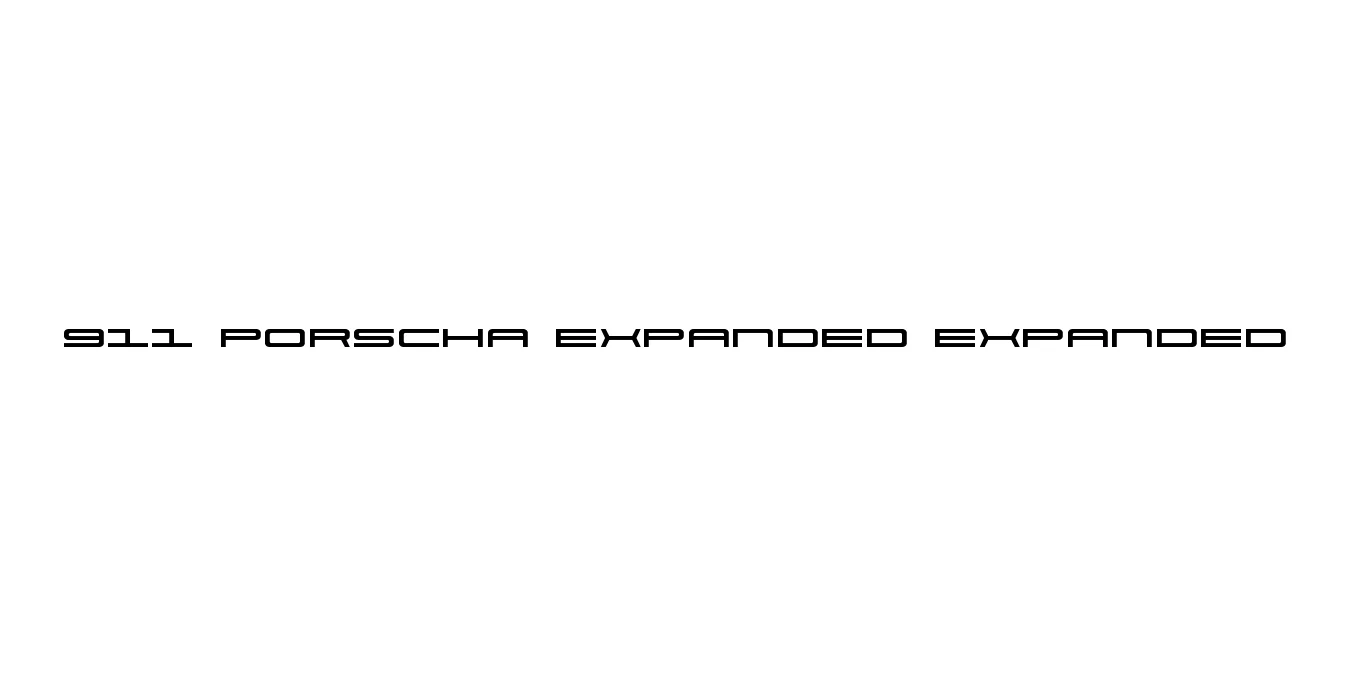
911 Porscha Expanded Expanded
Designed by Iconian Fonts (Dan Zadorozny)
| Category | Techno / Display |
911 Porscha Expanded is a high-octane display typeface heavily inspired by the iconic branding and logo of the Porsche automotive company. It embodies a techno-industrial aesthetic characterized by extremely wide proportions and sleek, horizontal lines that evoke a sense of speed, motion, and modern luxury. The typeface is part of a larger family designed to capture the essence of high-performance engineering and futuristic design.
This specific variant, Expanded Expanded, pushes the horizontal scale to its limits, making it a powerful choice for massive headlines and impactful visual identities. Since its release, it has become a go-to font for the automotive community, racing enthusiasts, and sci-fi designers who need a font that feels both aerodynamic and authoritative. Its clean, geometric construction ensures it remains legible even at extreme widths, serving as a staple for projects requiring a bold, mechanical presence.
911 Porscha Expanded Best Uses
Ideal for car club logos, racing decals, and vehicle-related branding.
Perfect for high-speed racing game interfaces and HUD elements.
Works well for large-scale futuristic or industrial event posters.
Excellent for tech-focused website headers requiring a modern, wide look.